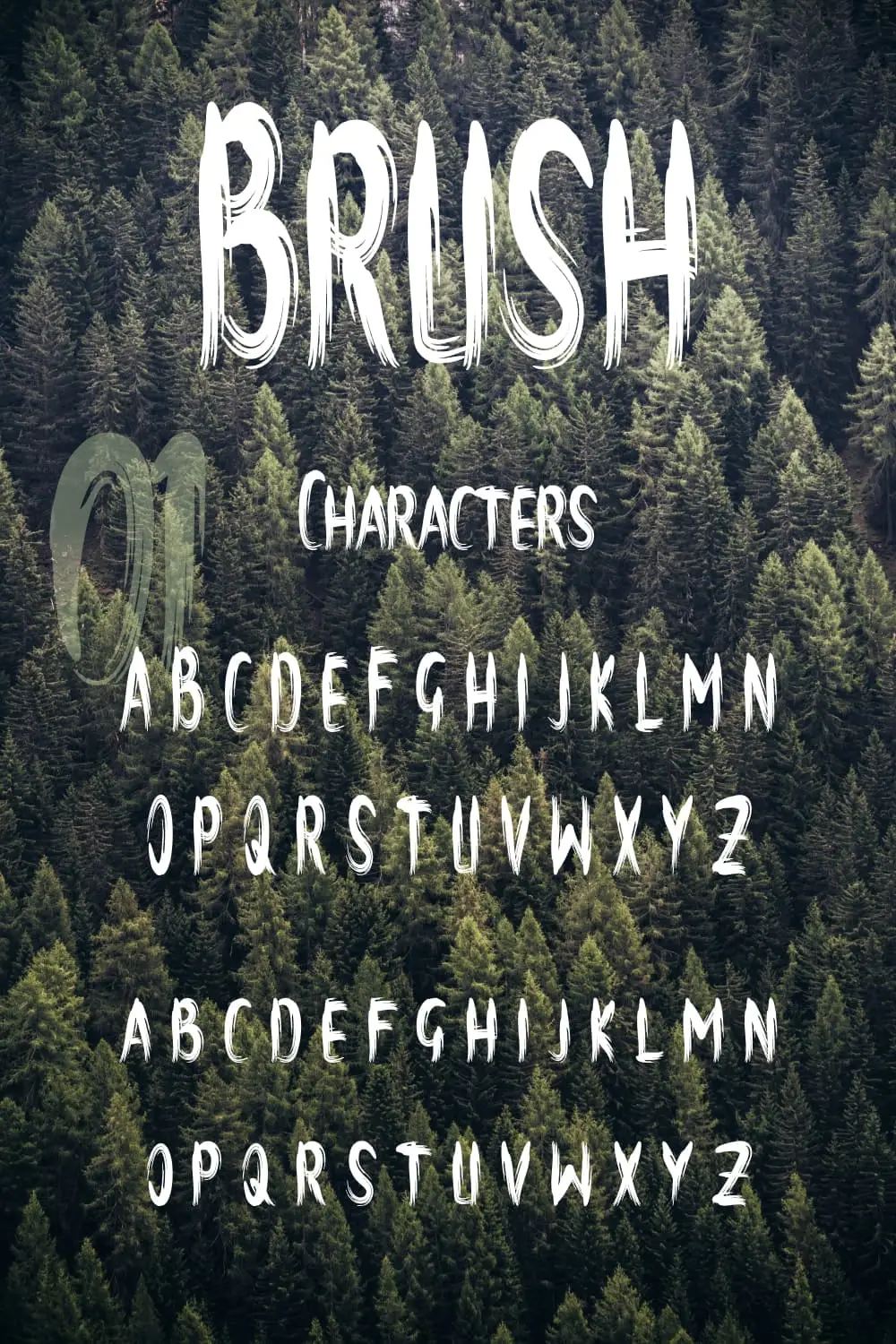
Brush Font
The Brush Font is a stylish and expressive typeface that captures the essence of hand-painted lettering. Perfect for a variety of design projects, this font adds a personal touch to your branding, logos, and promotional materials.
• Unique brush-style design
• Easy to read at various sizes
• Weight: Regular, Bold
• Ideal for branding, logos, and print materials
• Great for web design and user interfaces
• Use in combination with clean sans-serif fonts for contrast